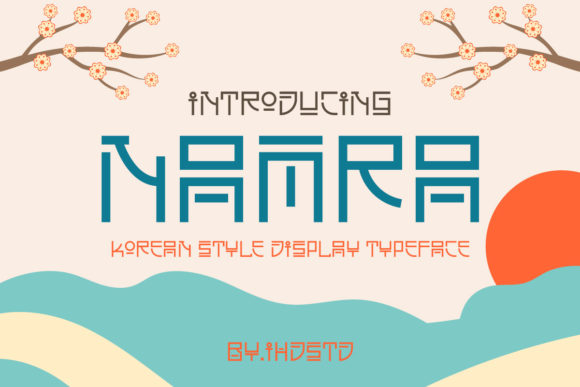
Unleash your creativity with Namra, the captivating display font that's sure to turn heads. Inspired by the vibrant streets of Korea, this font oozes style and sophistication, making it the perfect choice for creating eye-catching designs that leave a lasting impression.
With Namra, the possibilities are limitless. Whether you're designing a captivating poster that demands attention, a sleek flyer that entices your audience, or any other print project that needs a touch of flair, this font has got you covered. Its bold strokes and dynamic curves create a visual impact that's hard to ignore, ensuring that your designs stand out from the crowd.
But Namra is more than just a pretty face. It's also incredibly versatile, adapting effortlessly to a wide range of design styles. From whimsical illustrations to elegant typography, Namra's unique character shines through, adding a touch of Korean flair to your projects.
So why settle for ordinary fonts when you can embrace the extraordinary with Namra? Its vibrant energy and endless possibilities make it the perfect weapon in your creative arsenal. Unleash your imagination and let Namra elevate your designs to new heights!